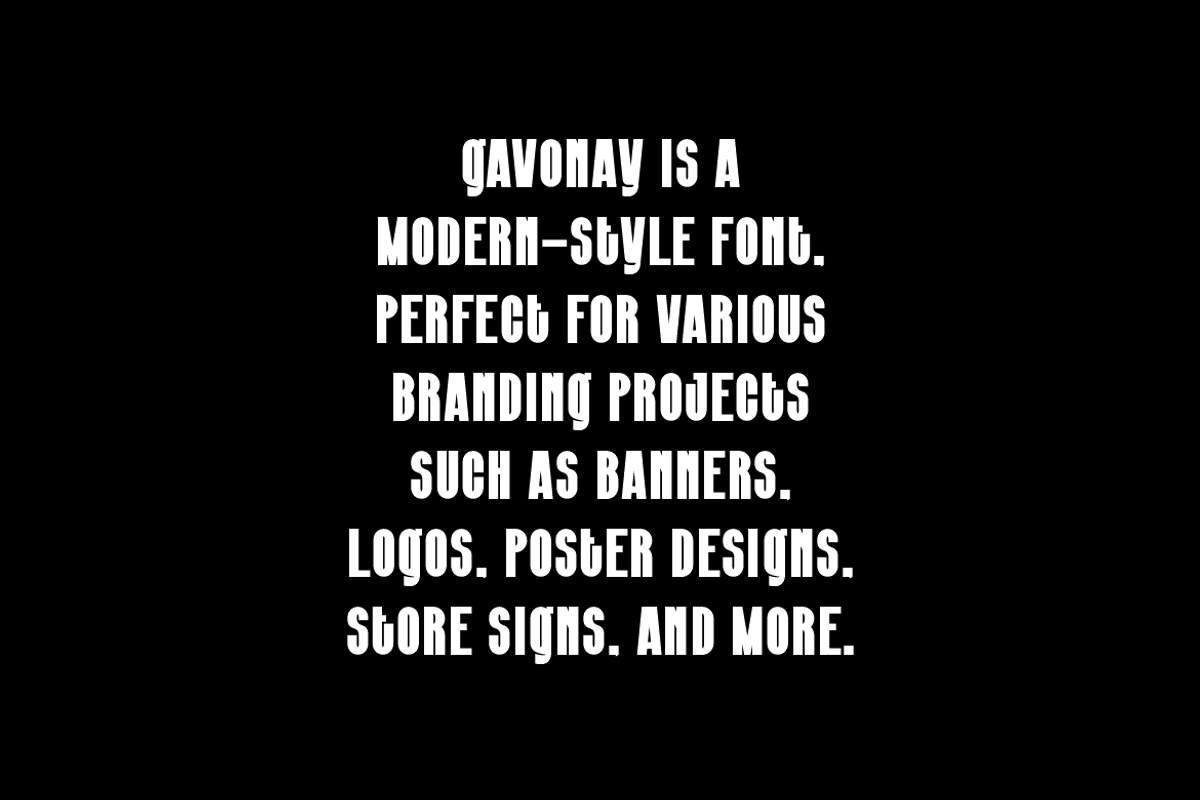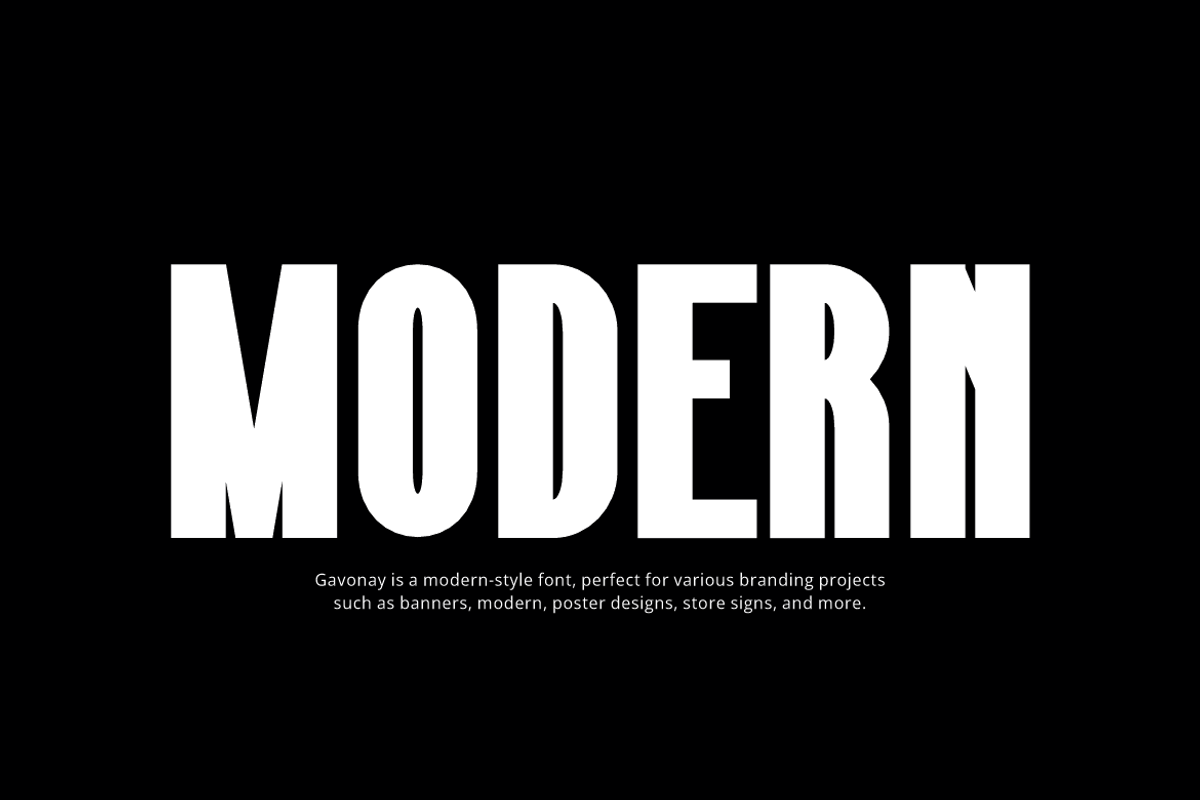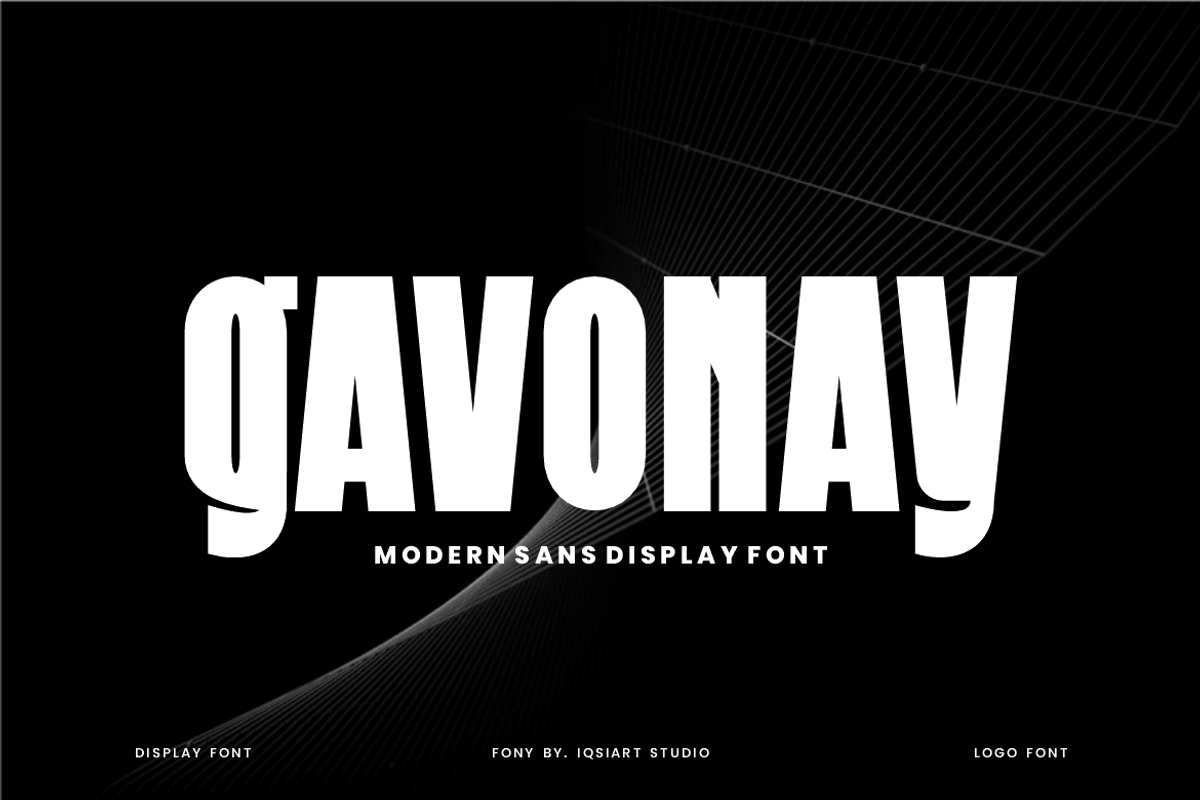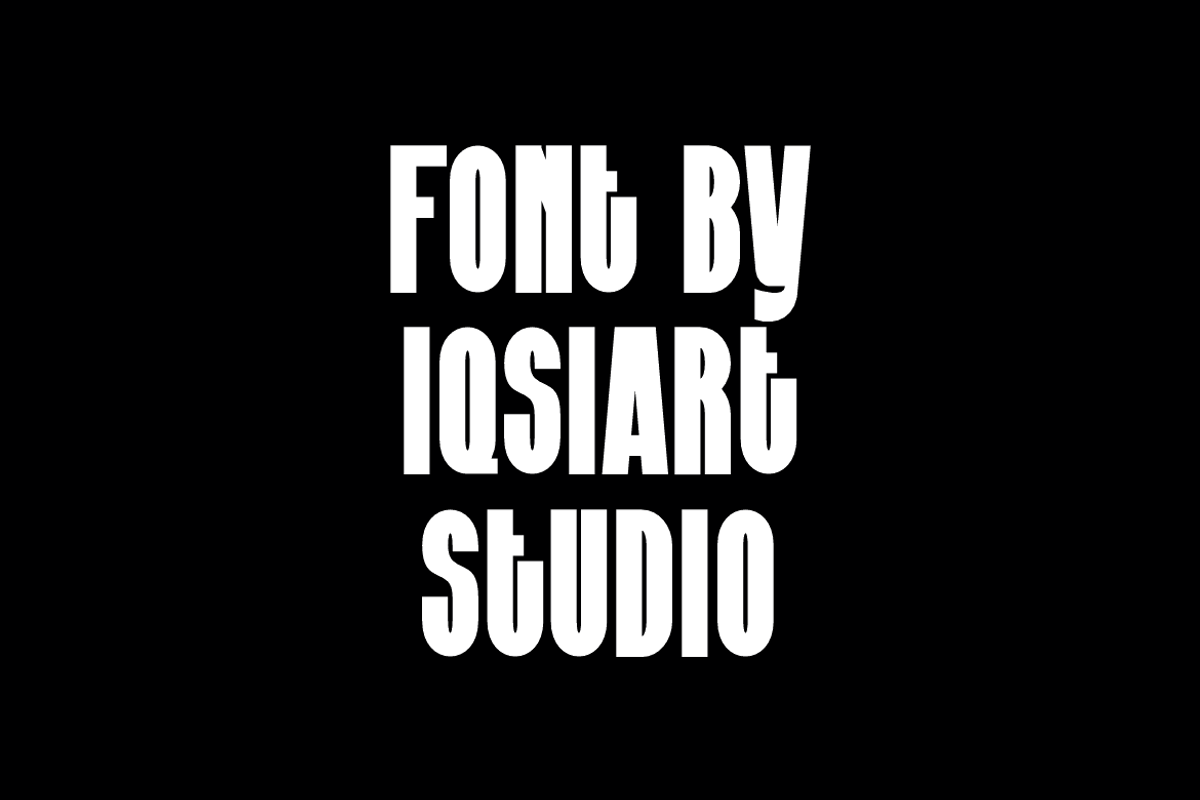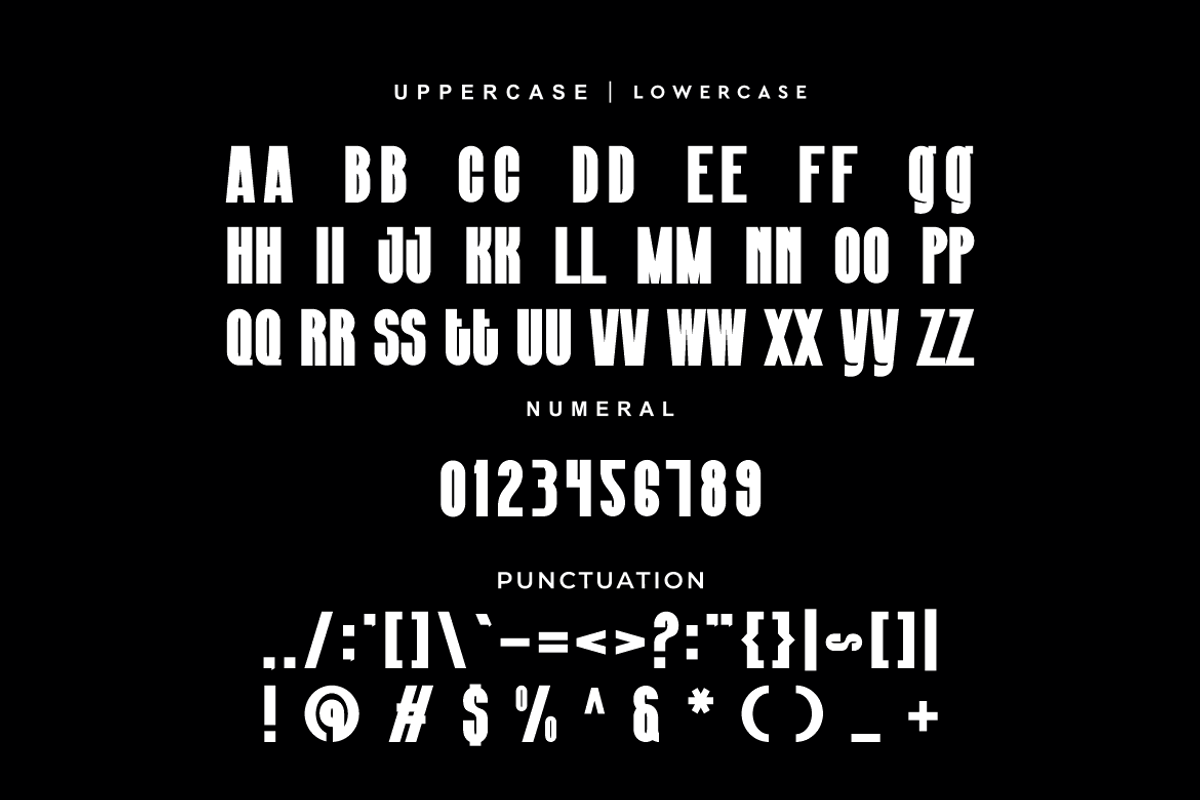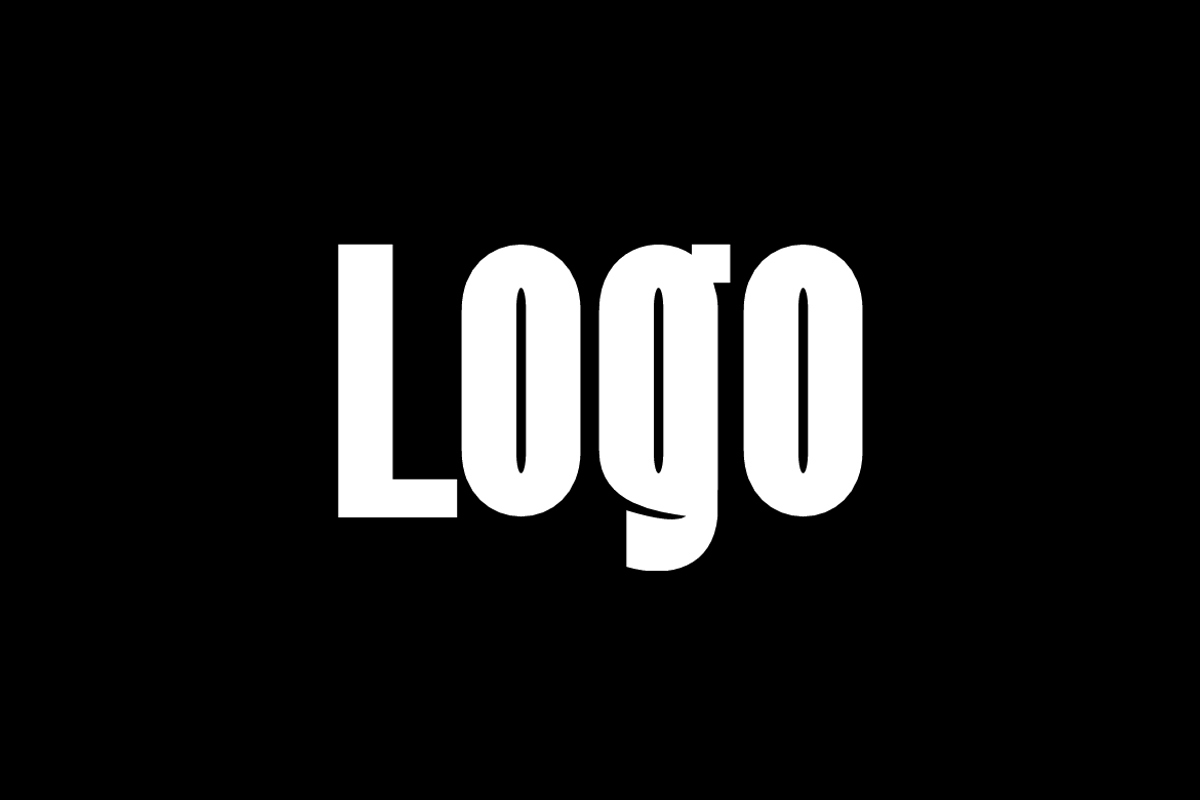
Gavonay - Modern Font
GavonayFont is a bold and authentic display typeface that suits a variety of design needs. We offer a wide range of themes and font styles — visit our profile to explore more and find the perfect style for your project.